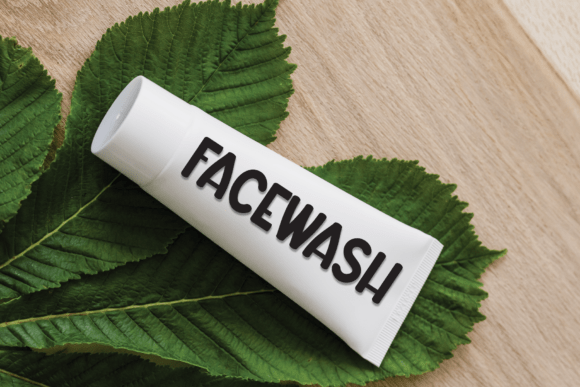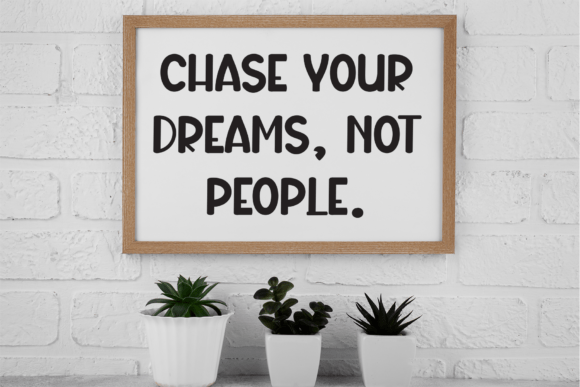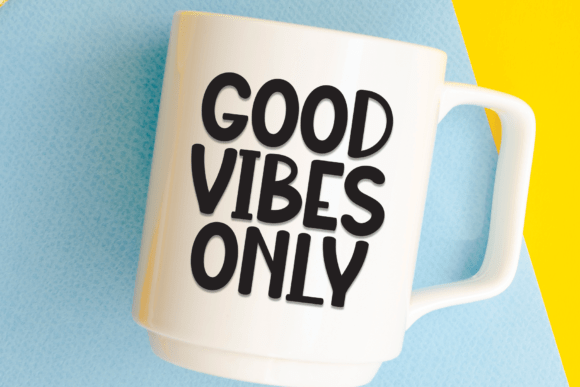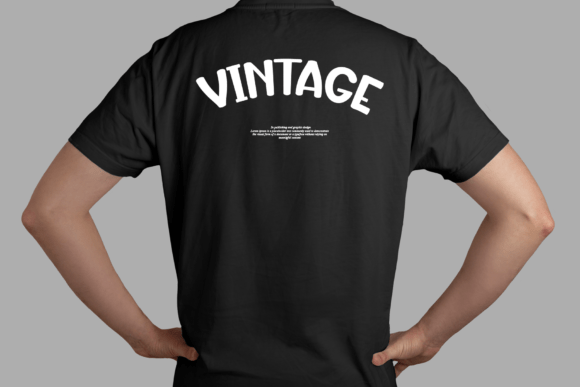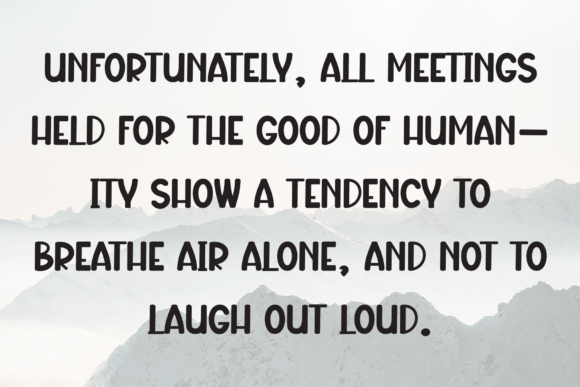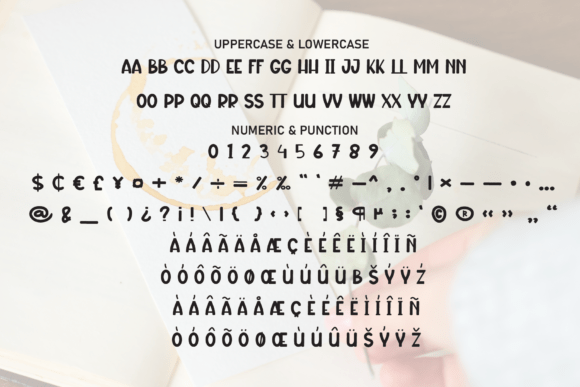
Discover the Perfect Font for Your Next Creative Project
Do you ever find yourself in the midst of a creative flow, and suddenly, the perfect font pops into your mind? For designers, this moment is a treasure. It’s the spark that ignites a new idea, and with the right font, your project comes to life. This is exactly what Bookmark Font is designed to do – provide you with that extra special something that sets your work apart.
Bookmark Font is a unique and stylish collection of letters that can be used in a variety of creative projects. From wedding invitations to product packaging, this font is perfect for anyone looking to add a touch of personality to their designs. With its versatility and ease of use, Bookmark Font is a valuable asset for any designer looking to elevate their work.
- Unique Characteristics: Bookmark Font features a unique blend of modern and vintage elements, making it perfect for creating eye-catching and memorable designs.
Designer Review: Bookmark Font
Overall, I think the Bookmark Font is a nice addition to any design project, but it has its limitations. ✨ The font’s most notable feature is its unique aesthetic, which is perfect for projects that require a vintage or retro vibe.
- The font’s bold and italic styles add a nice depth to the design, making it perfect for headings and emphasis.
- The unique letterforms and ornaments provide a lot of character and can help to create a memorable brand identity.
- The font is highly customizable, making it easy to adjust to suit your design needs.
- ⚠️ The font’s readability can be a concern, especially at smaller sizes. The unique letterforms can make it difficult to read for some users.
- ⚠️ The font is not as versatile as some other options, making it less suitable for projects that require a more modern or minimalist look.
Overall, I would recommend the Bookmark Font for projects that require a unique and vintage aesthetic. However, it’s essential to consider the potential limitations and ensure that the font will work well for your specific design needs.
The Bookmark Font is a versatile font that can be used in a variety of applications, including:
- Infographics and data visualizations
- Print materials and publications
For best results, use the Bookmark Font in combination with other bold and modern fonts to create a cohesive design aesthetic.